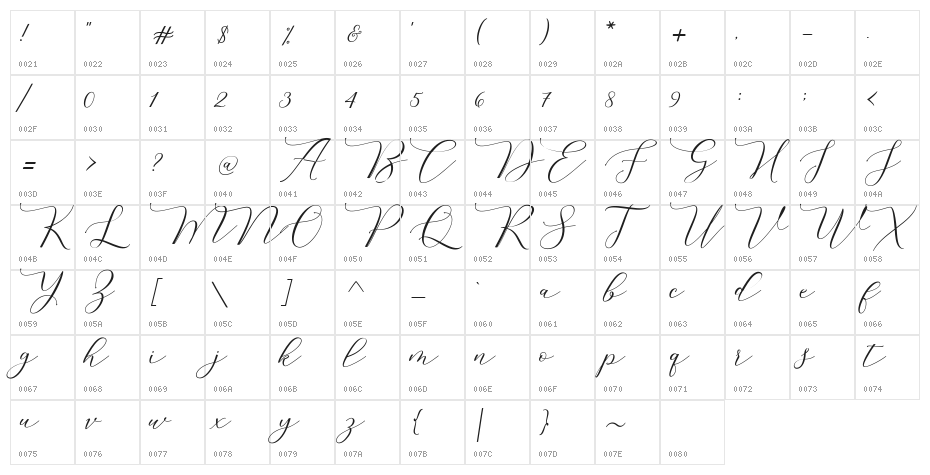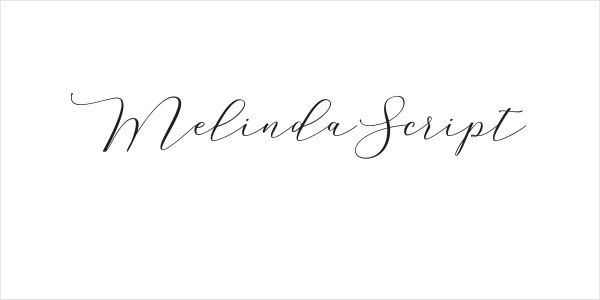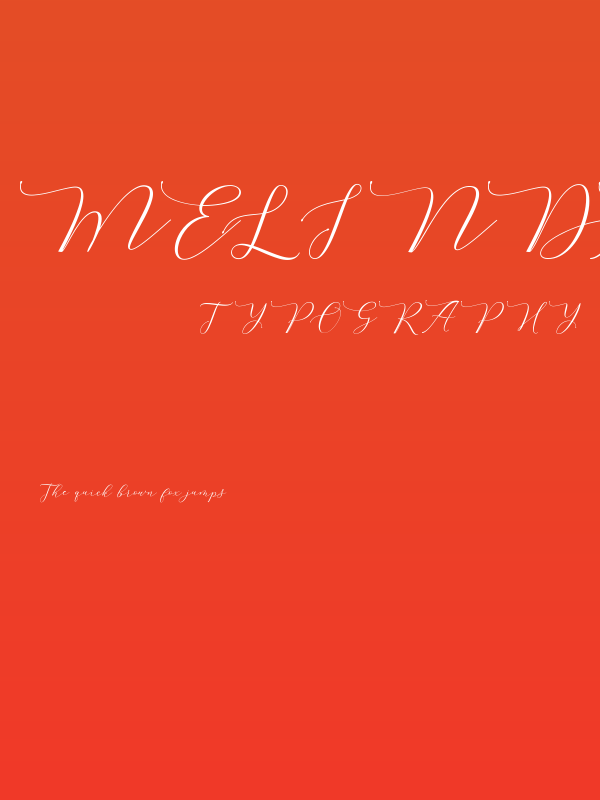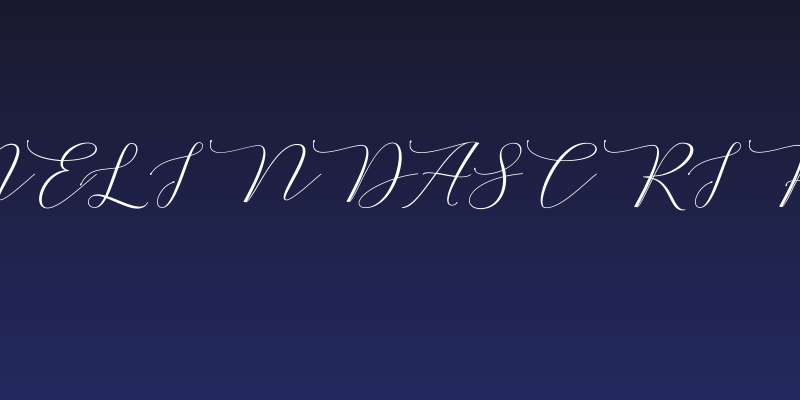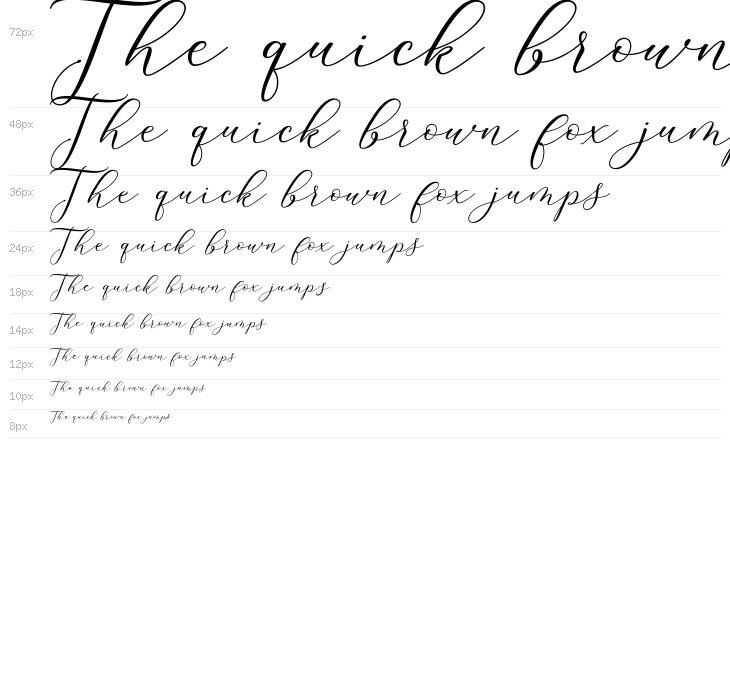
MelindaScript Font
MelindaScript Description
This elegant script font features fluid, cursive strokes that mimic the graceful flow of handwriting. The uppercase letters are characterized by their sweeping, elongated lines and delicate loops, while the lowercase letters maintain a consistent, flowing style that enhances readability. The numerals are designed with a similar cursive flair, adding a touch of sophistication. Special characters are seamlessly integrated, maintaining the font's cohesive aesthetic. The overall design exudes a sense of elegance and refinement, making it ideal for projects that require a personal, handwritten touch.
| Overall Style | Elegant, Handwritten |
| Use Case | Logos, Invitations, Personal Branding |
| Proposed Projects | Ideal for wedding invitations, greeting cards, personal branding, and elegant stationery. |